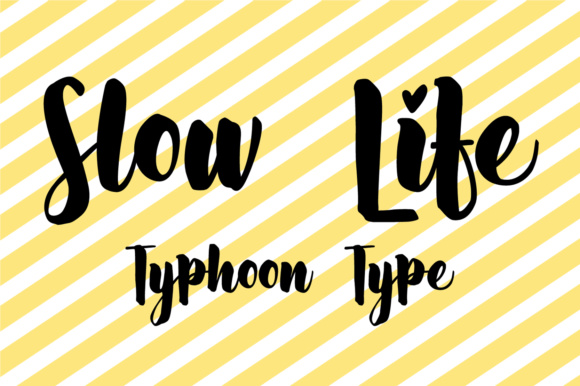
Slow Life Font
About Slow Life Font
Slow Life is a beautiful, handwritten font. This thick, bold script font has a great look, and works well in a wide range of project types.